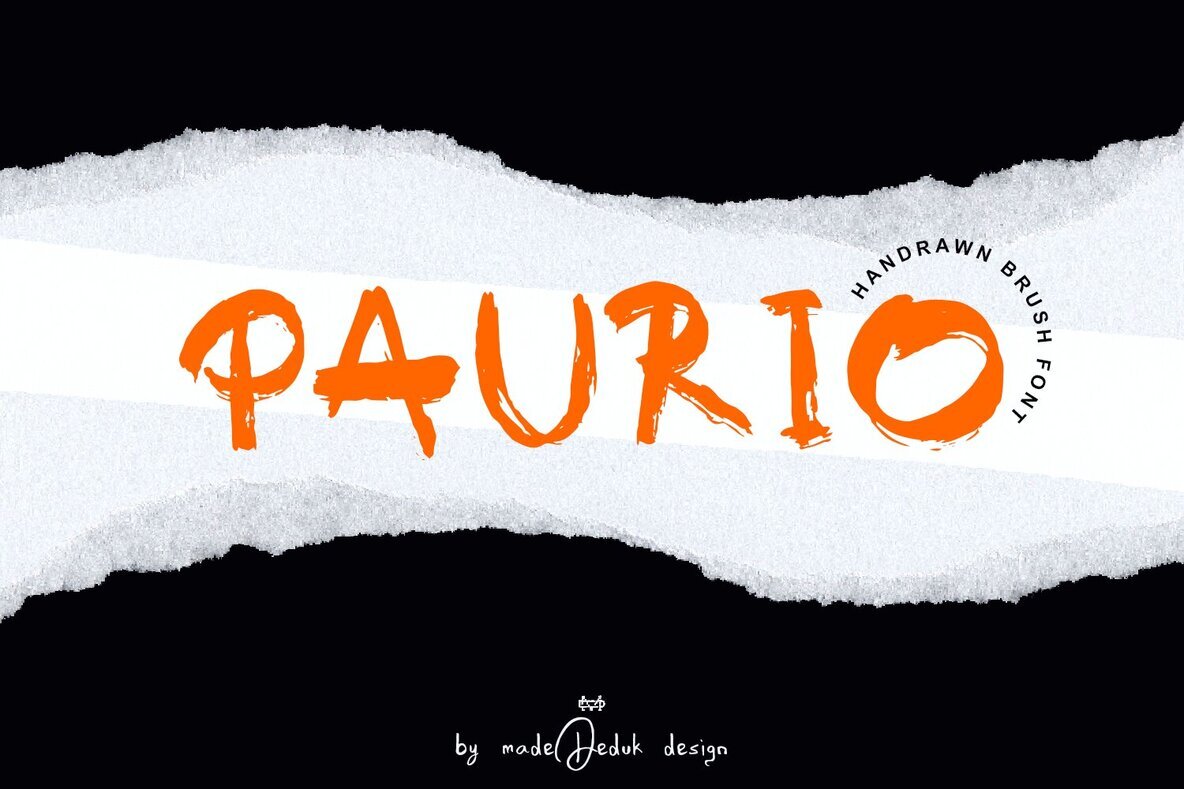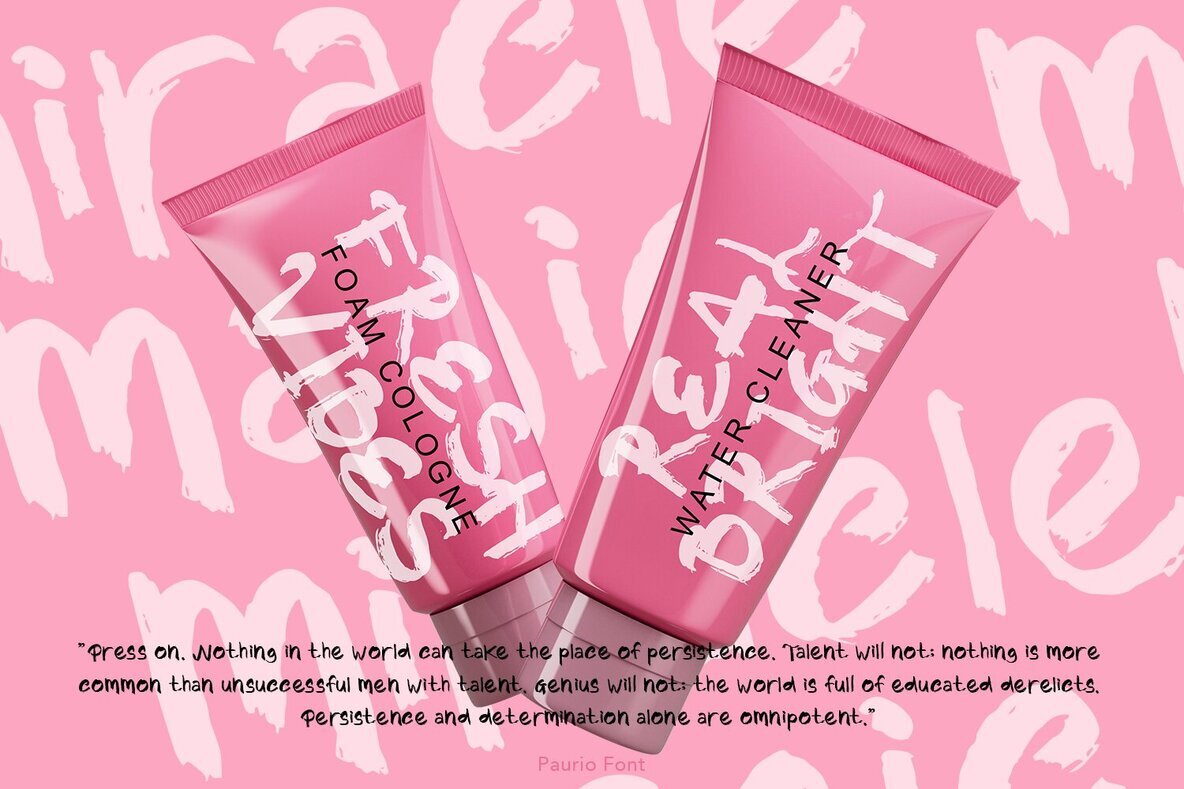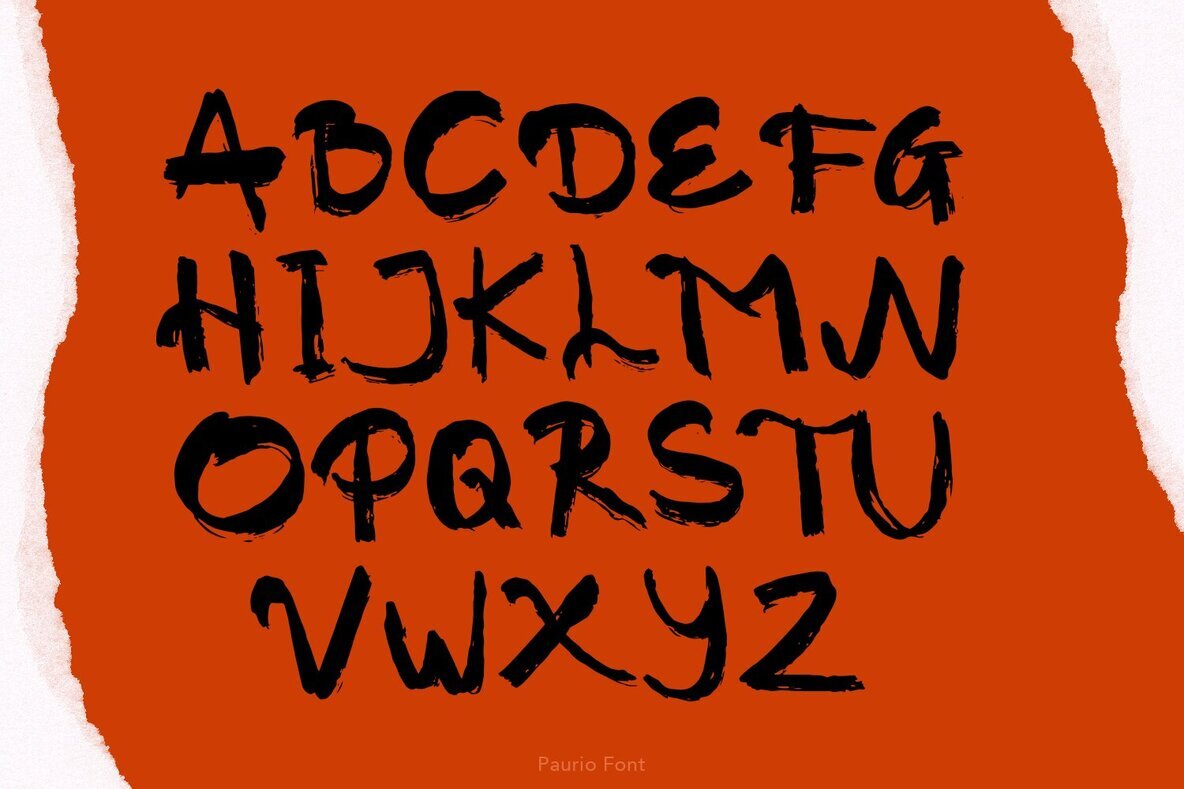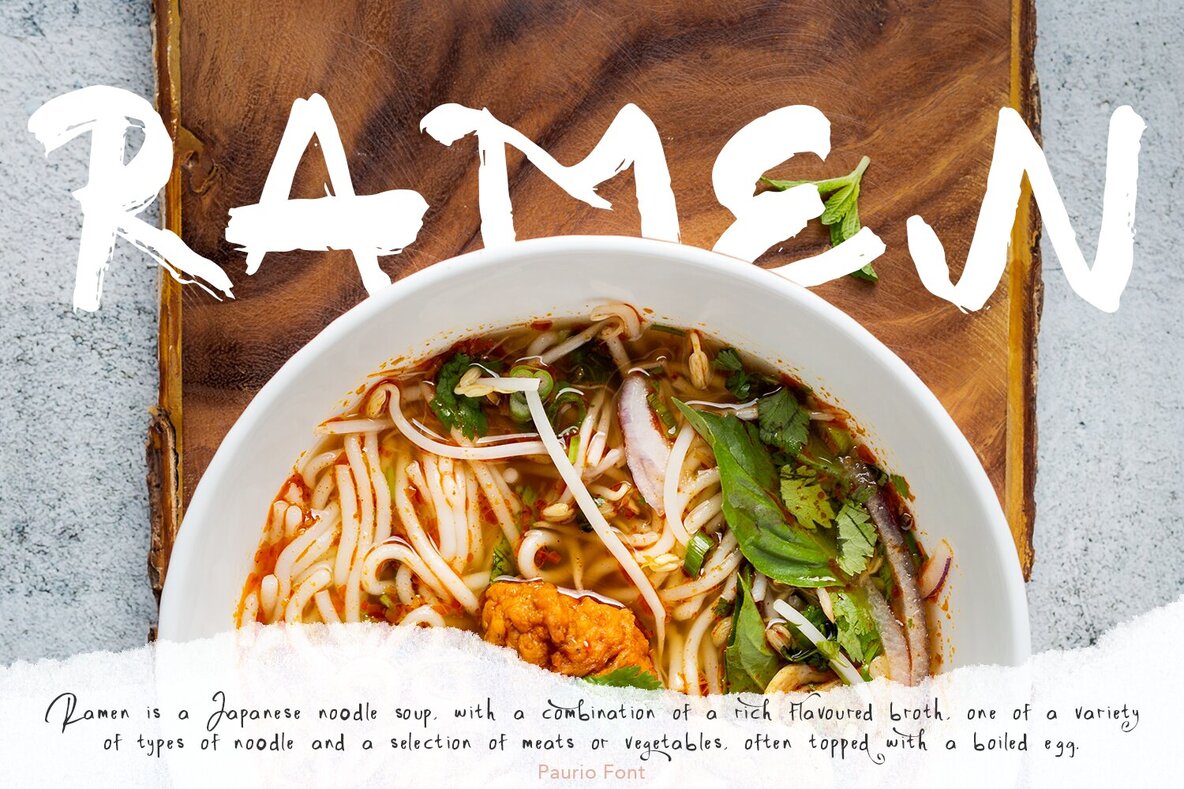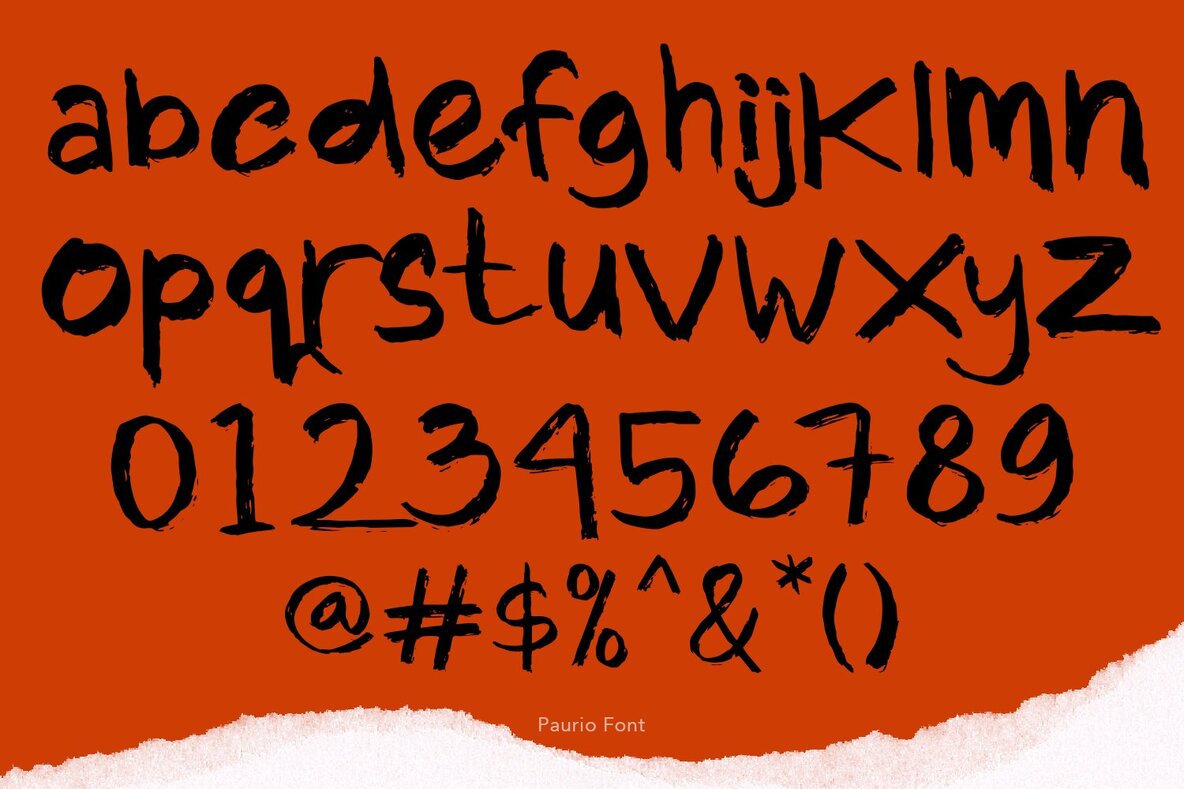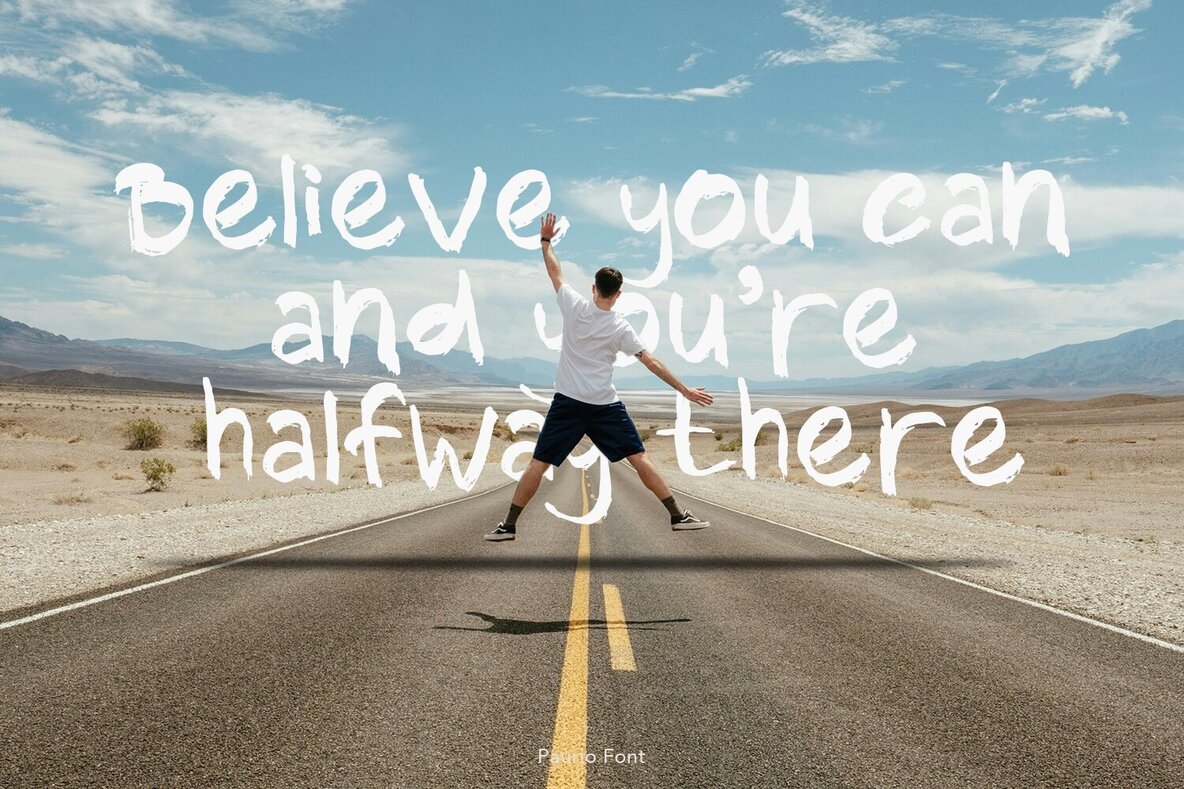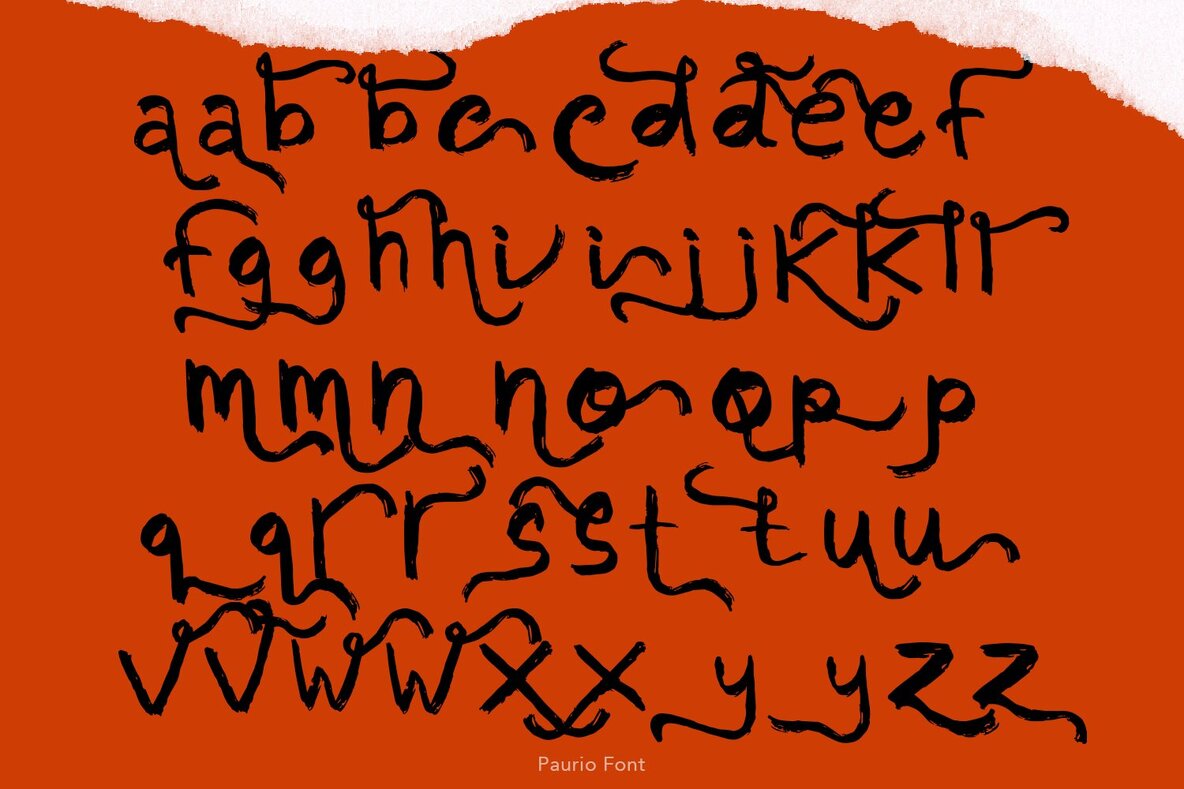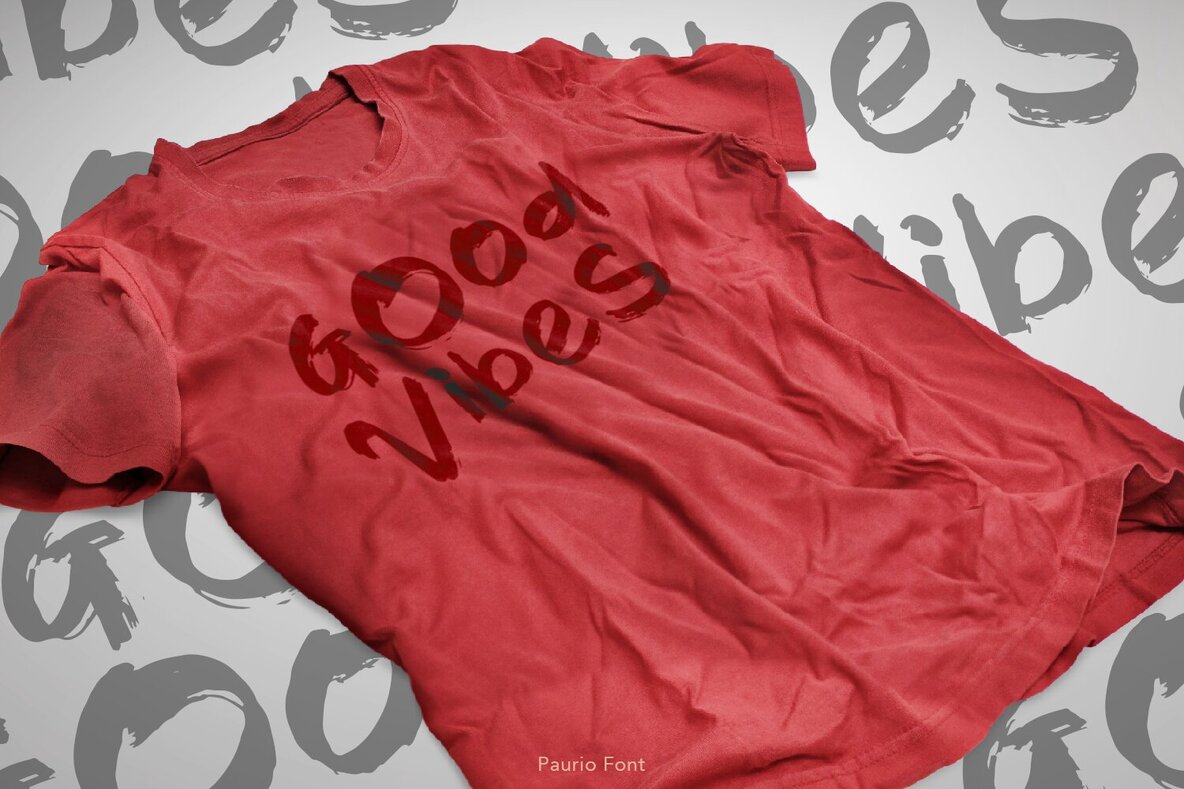
Paurio Font
Paurio
Paurio is a realistic brush font designed to bring a handcrafted touch to your projects. With a wide variety of alternate characters, it offers versatility for creatives looking to make an impact. This font is ideal for numerous applications including poster design, book covers, merchandise, fashion campaigns, newsletters, branding projects, advertising, magazines, greeting cards, album covers, and quote designs.
The brush style of Paurio makes it particularly effective for projects that require an authentic, artistic feel. Its adaptability ensures that regardless of the medium, Paurio will enhance your designs with a unique flair. Whether you're working on a high-impact advertising campaign or creating an inviting greeting card, this font delivers both style and functionality for a professional look.